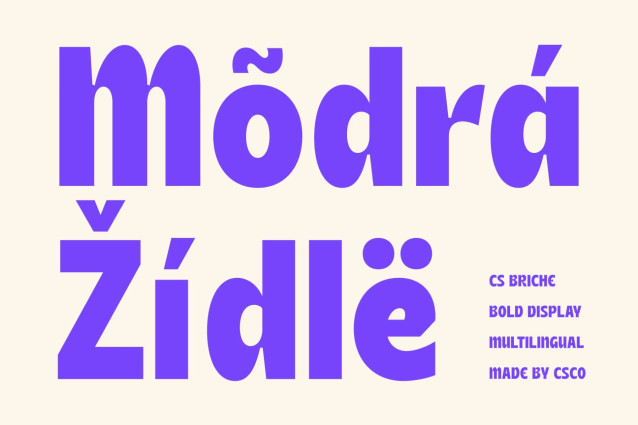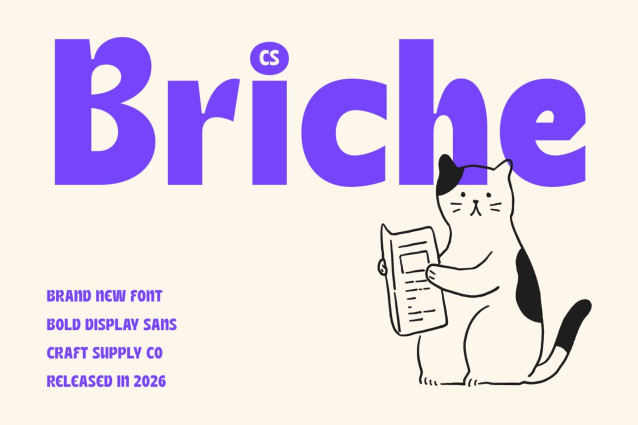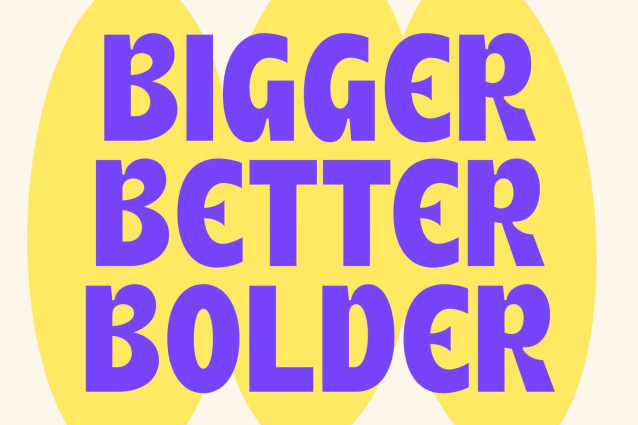
CS Briche – Bold Sans Serif Font
CS Briche – Modern Sans Serif Font: Where Chunky Boldness Meets Playful Charm
Bold Chunky Forms with Strong Visual Presence
This is a modern sans serif font designed with a playful, bold, and chunky style that instantly captures attention. Its strong letterforms and substantial proportions create a powerful visual presence, ensuring every word stands out with confidence and clarity. Built for display purposes, the font delivers maximum impact while maintaining a friendly and approachable personality.
Playful Design with Expressive Energy
This font brings a sense of fun and creativity to any design. Its rounded, bold construction creates a welcoming appearance that feels energetic and engaging. The balance between strength and playfulness makes the font versatile enough for projects that seek both attention-grabbing impact and positive visual appeal.